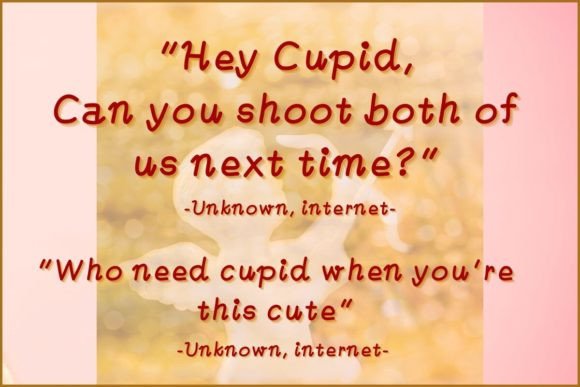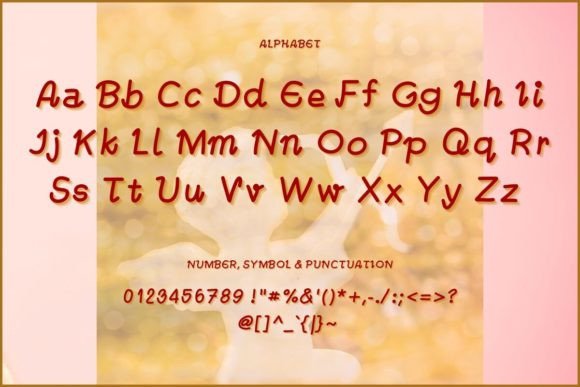
Introducing Cupid: The Font that Brings Joy and Whimsy to Your Designs
The Story Behind Cupid
Cupid, the mischievous god of love, has inspired countless works of art and literature throughout history. Our font, Cupid, draws inspiration from the charming lore surrounding this iconic figure. With its rounded features and carefree vibe, Cupid is the perfect addition to any design project that needs a touch of whimsy and romance.
My Honest Review of Cupid
Here’s what I love about Cupid:
- ✨ Playful and charming: Cupid’s unique design makes it perfect for projects that require a touch of personality and whimsy.
- ✅ Easy to read: Despite its playful nature, Cupid remains highly legible, making it suitable for both headings and body text.
- 💕 Romantic and festive: Cupid’s design is perfect for Valentine’s Day, weddings, or any project that requires a touch of romance.
Now, I’m not going to sugarcoat it – Cupid does have a few quirks:
- 🤔 Limited use in formal contexts: Cupid’s playful nature makes it less suitable for formal or professional projects that require a more serious tone.
- ⚠️ Some letter combinations: As with any font, some letter combinations may not look perfect, but overall, Cupid’s design is cohesive and visually appealing.
Design Inspiration
Cupid was designed with the goal of capturing the playful and charming essence of the mythological god of love. Our design team drew inspiration from various sources, including ancient Greek and Roman art, as well as modern illustrations and typography. The result is a font that is both timeless and modern, with a unique personality that is sure to bring joy and whimsy to your designs.
| Is Cupid suitable for body text? | While Cupid is primarily designed for headings and titles, it can be used for body text in certain contexts. However, its playful nature may make it less suitable for long blocks of text. |